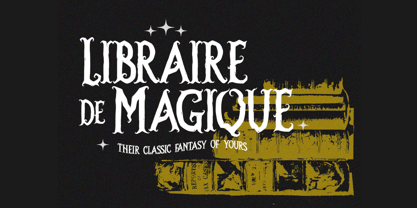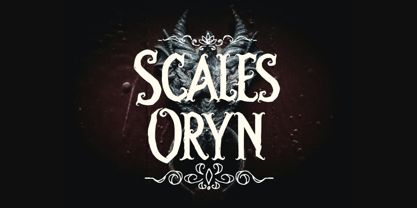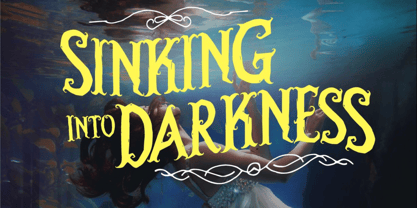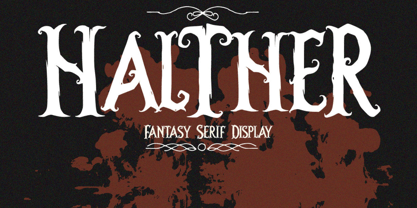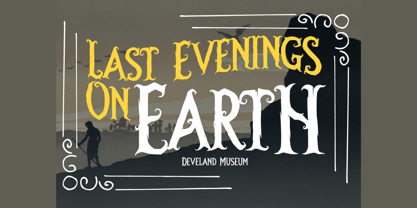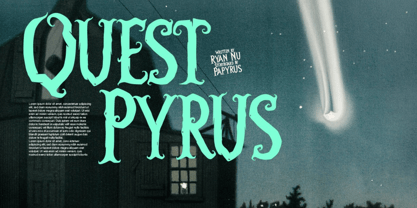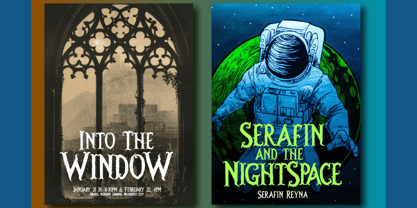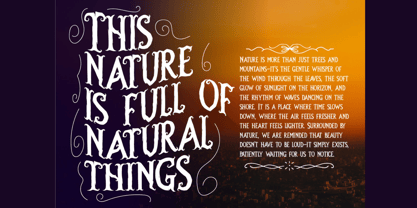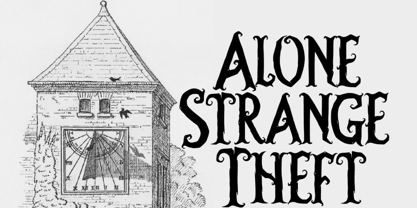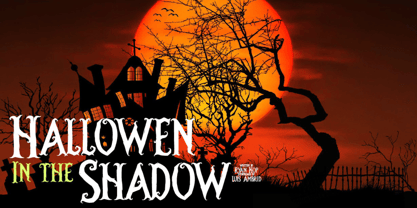
Huscare
by Hasnat Studio
The Huscare Font Family was designed by Hasnat Khan and published by Hasnat Studio. Huscare contains 1 styles. More about this family
Huscare is a gothic–fantasy display serif font crafted to bring a mysterious, dramatic, and enchanting touch to your designs. With its bold, sharp letterforms and magical aesthetic, this typeface is ideal for creating dark, fantasy-inspired visuals that command attention and spark imagination.
Whether you’re designing horror posters, fantasy book covers, game branding, movie titles, or mystical event promotions, Huscare delivers the perfect balance of elegance and mystery. Its gothic curves and fantasy-inspired details make it a powerful choice for dark-themed creative projects.
✦ Key Features:
• All Caps Typeface – Includes Uppercase & Small Caps versions
✦ Perfect For:
• Horror & Gothic Movie Titles
• Fantasy Book Covers & Novels
• Video Game Branding & UI
• Dark Posters & Flyers
• Magic-Themed Logos & Projects
• Event Invitations & Promotions
Give your work a darkly elegant and otherworldly atmosphere with Huscare. A must-have gothic fantasy serif font that transforms every design into a dramatic, attention-grabbing masterpiece.